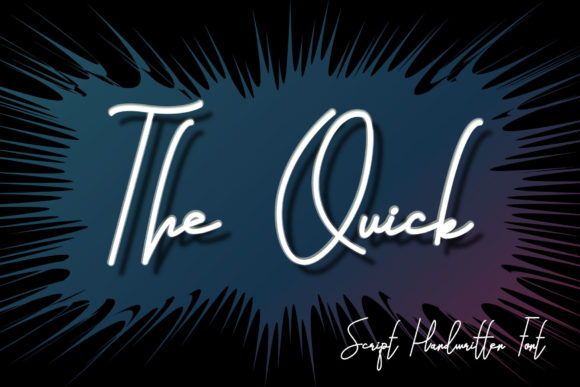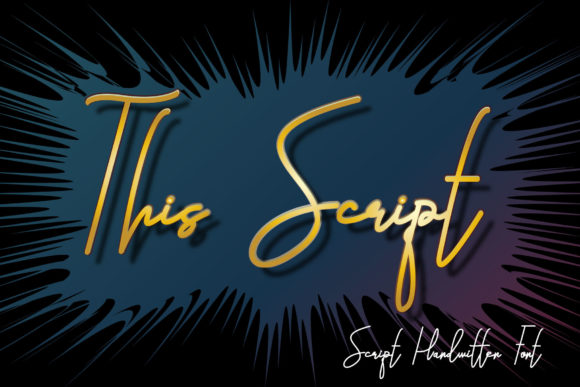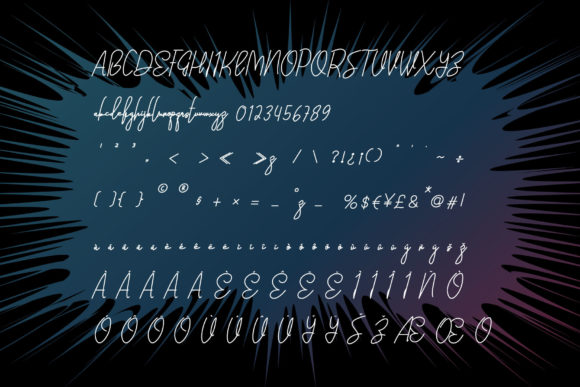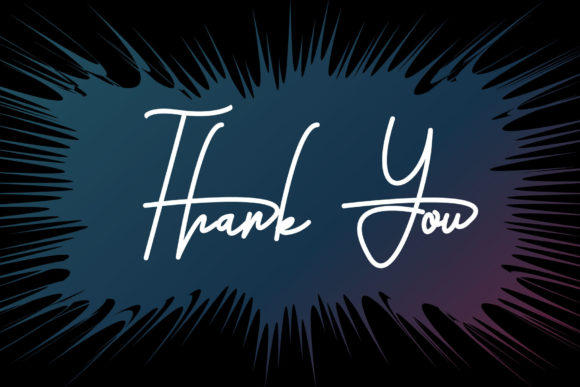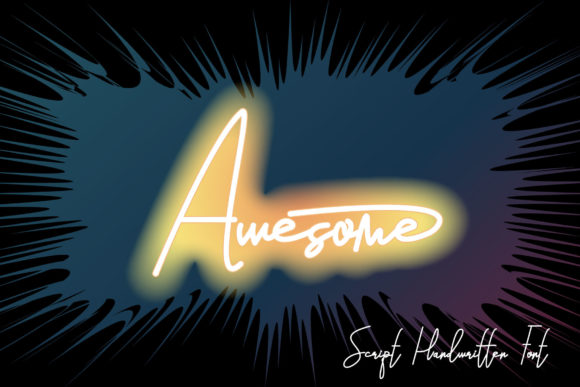
HomePersonal Use FreeThe Quick Personal Use Free The Quick FacebookXPinterestWhatsApp 1 of 5 About The Quick Font The Quick is a beautiful and refined script font. It has a classy, elegant and modern look that can be used for logos, branding, invitations, stationery, wedding designs, social media posts, and much more! DOWNLOAD NOW People also explored Manilla Script Font Kamies Font Bunny Card Font Allina Font Wathour Helpfull Smilage Fleurette Font Bagman Font Zenone Font 398 0 TagsThe Quick Font Previous articleBettariNext articleMakcex LEAVE A REPLY Cancel reply Comment: Please enter your comment! Name:* Please enter your name here Email:* You have entered an incorrect email address! Please enter your email address here Website: Save my name, email, and website in this browser for the next time I comment. Personal Use Free Aline Personal Use Free Read more about this font Marthissa Personal Use Free Read more about this font Diland Personal Use Free Read more about this font Uchiyama Personal Use Free Read more about this font BLOG Free vs Paid Fonts: Why Investing in Premium Fonts Is Worth It Free vs Paid Fonts: Why Premium Fonts Are Worth It in 2025 The debate of free vs paid fonts continues in the design world. While... Best Fonts for YouTube Videos: Make Your Thumbnails Stand Out To increase your work productivity, choose the most readable fonts. Best Fonts for T-Shirt Design – Top 2025 Picks